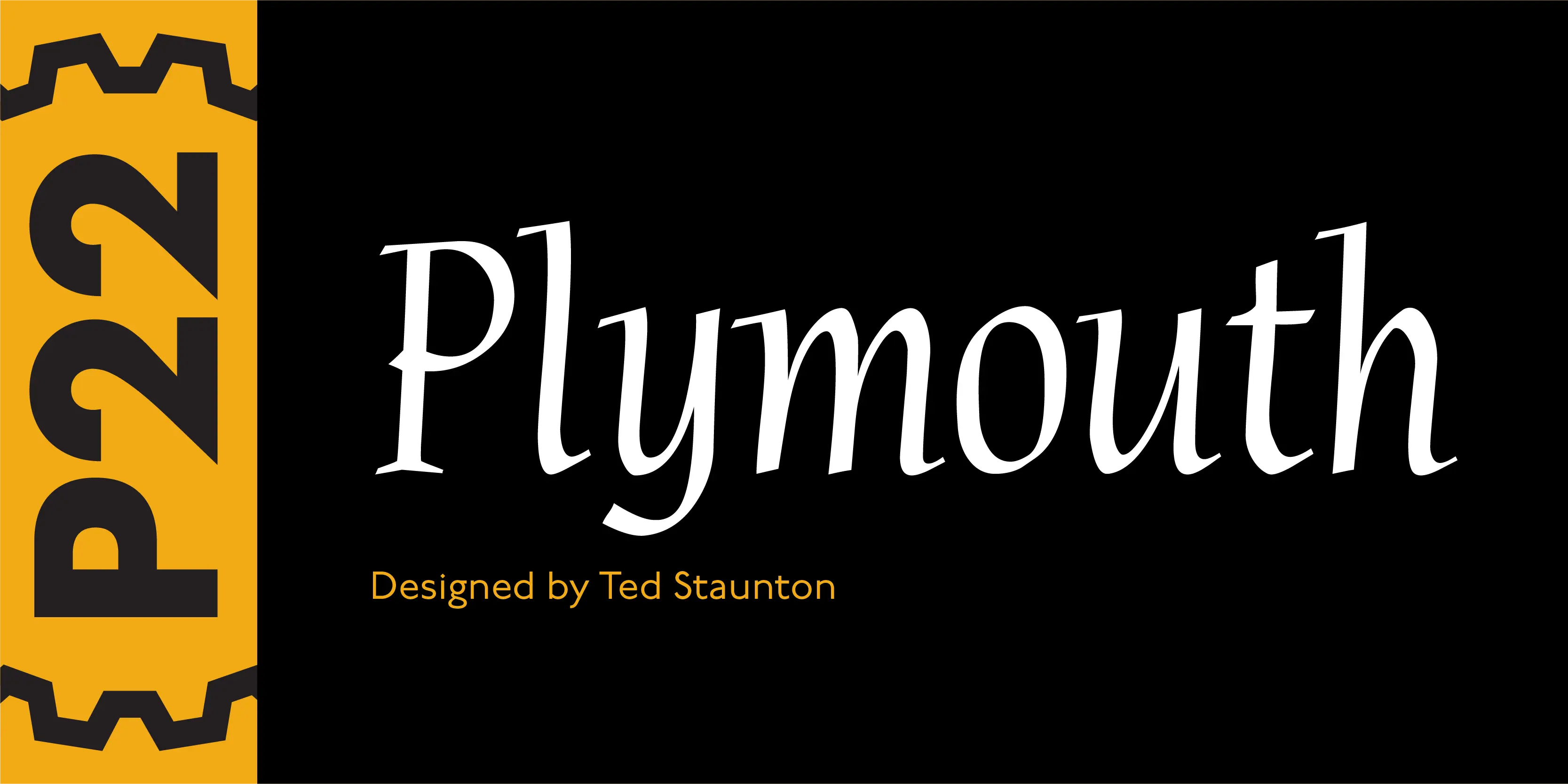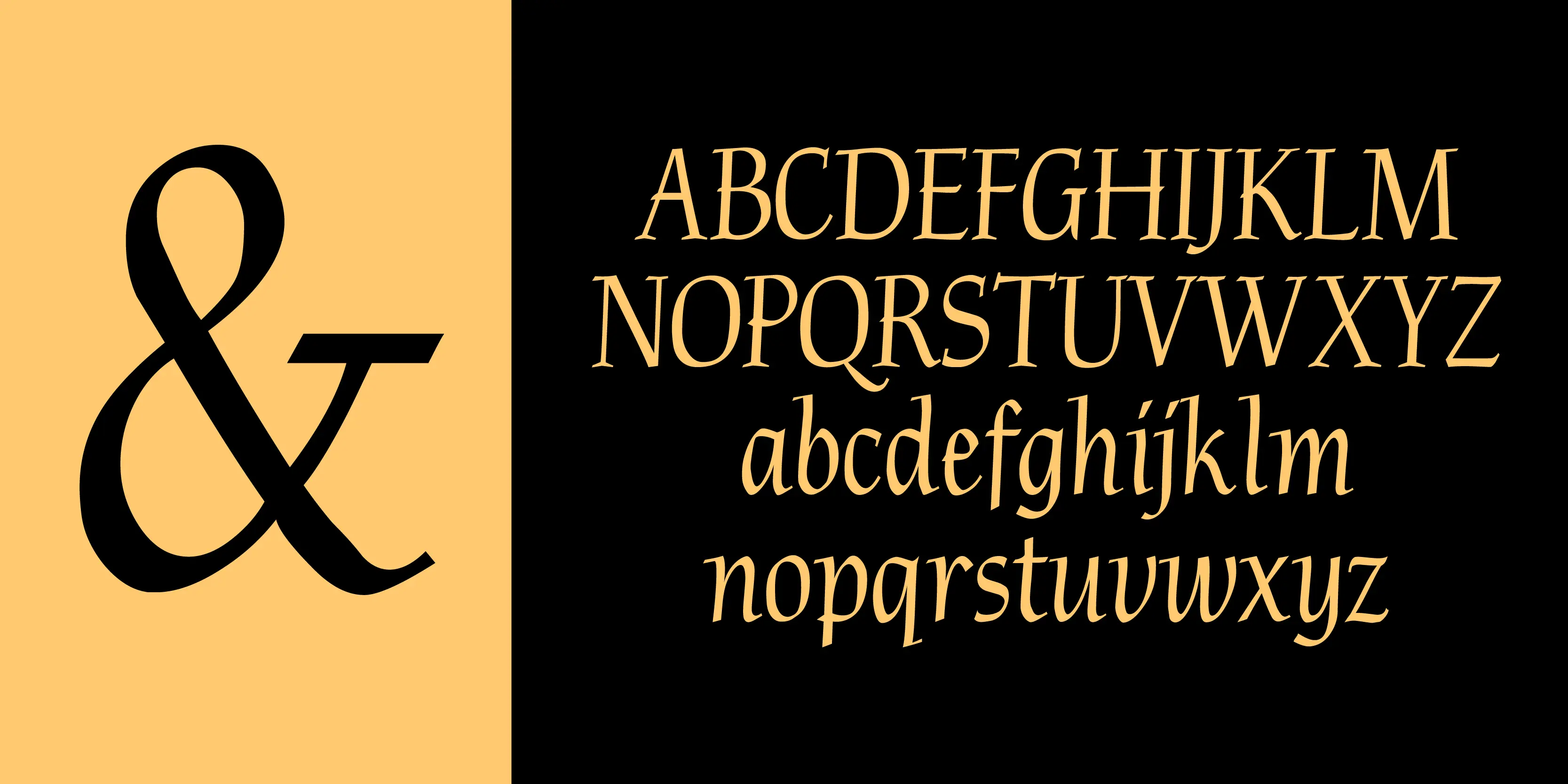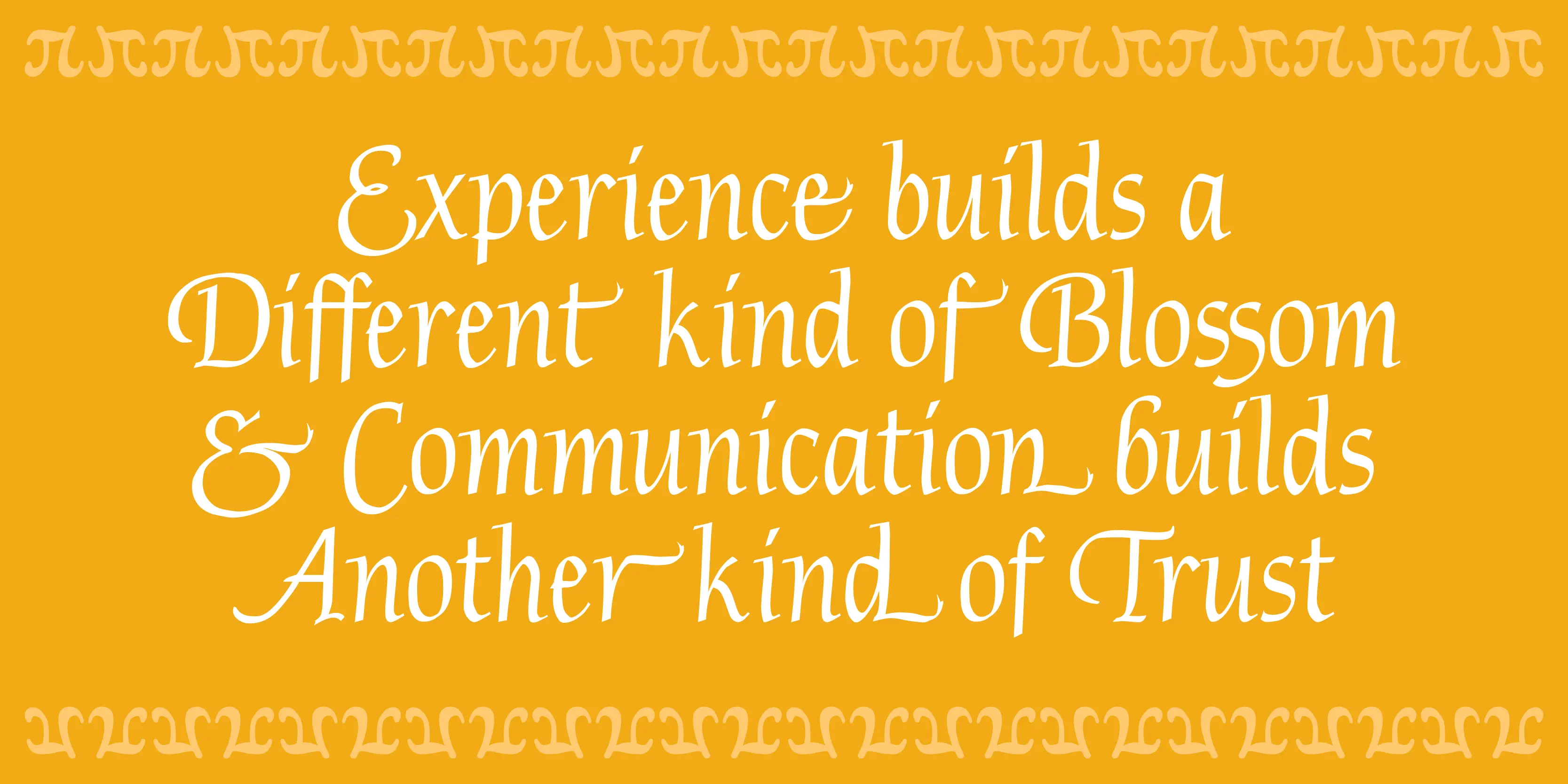
Plymouth Font
Plymouth
Plymouth is a pen-drawn calligraphic font of narrow proportions featuring plain capitals and an alternate range with swashes.
• Old Style Numerals
• Swashes
Swashes
Oldstyle Figures